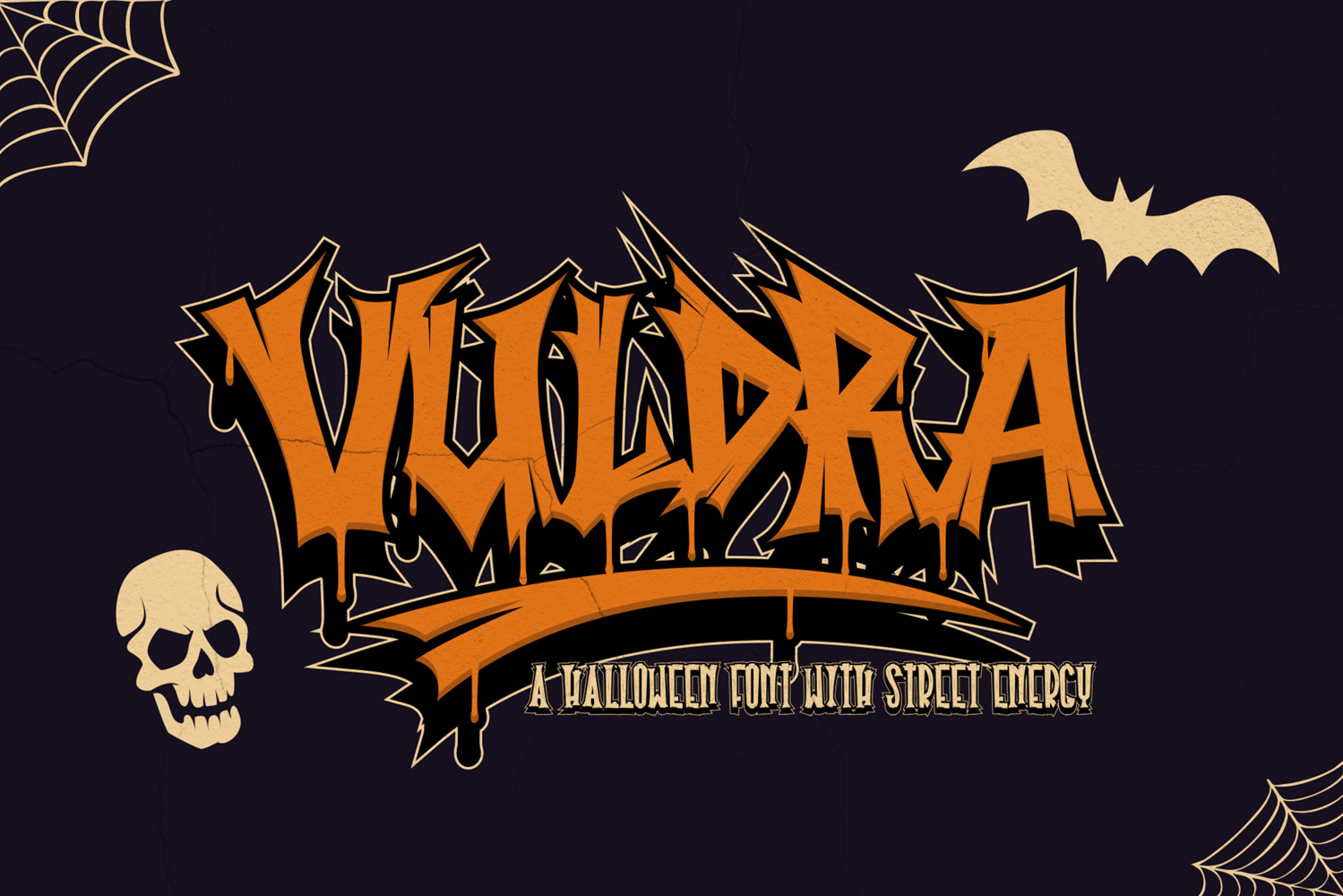
Vuldra - Halloween Font with Street Graffiti Energy
Vuldra brings together the spooky atmosphere of Halloween and the raw spirit of street graffiti in one powerful design. It features two expressive styles — Regular/Clean for strong readability and Dripping for bold, horror-inspired energy. Every letter is enhanced with a wild graffiti look and wood texture effect, giving it authentic depth and gritty detail. This makes Vuldra perfect for both seasonal projects and year-round urban branding. Designers can use it for Halloween party flyers, spooky invitations, streetwear apparel, skate designs, posters, and digital media like YouTube thumbnails or social campaigns. The dripping style is ideal for horror themes, while the clean style makes it versatile for logos and modern branding. With its unique texture and rebellious energy, Vuldra stands out from ordinary graffiti resources. Included files: OTF, TTF.